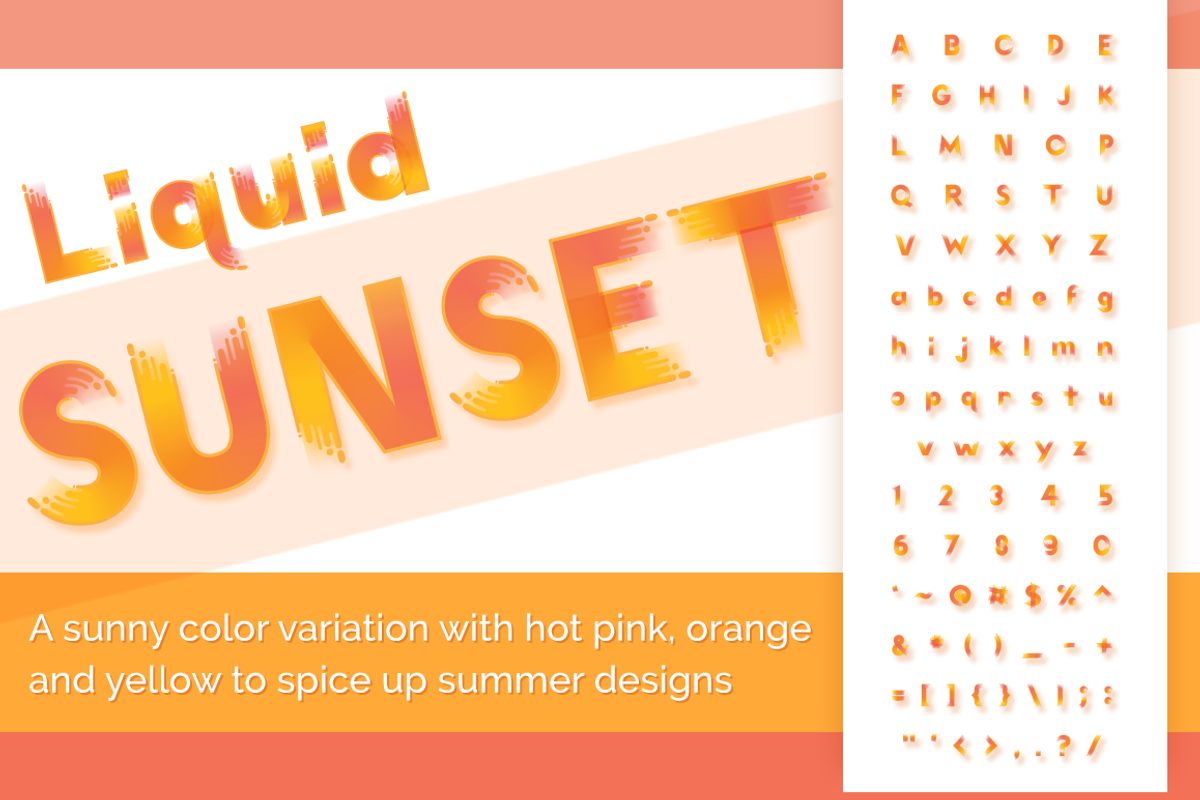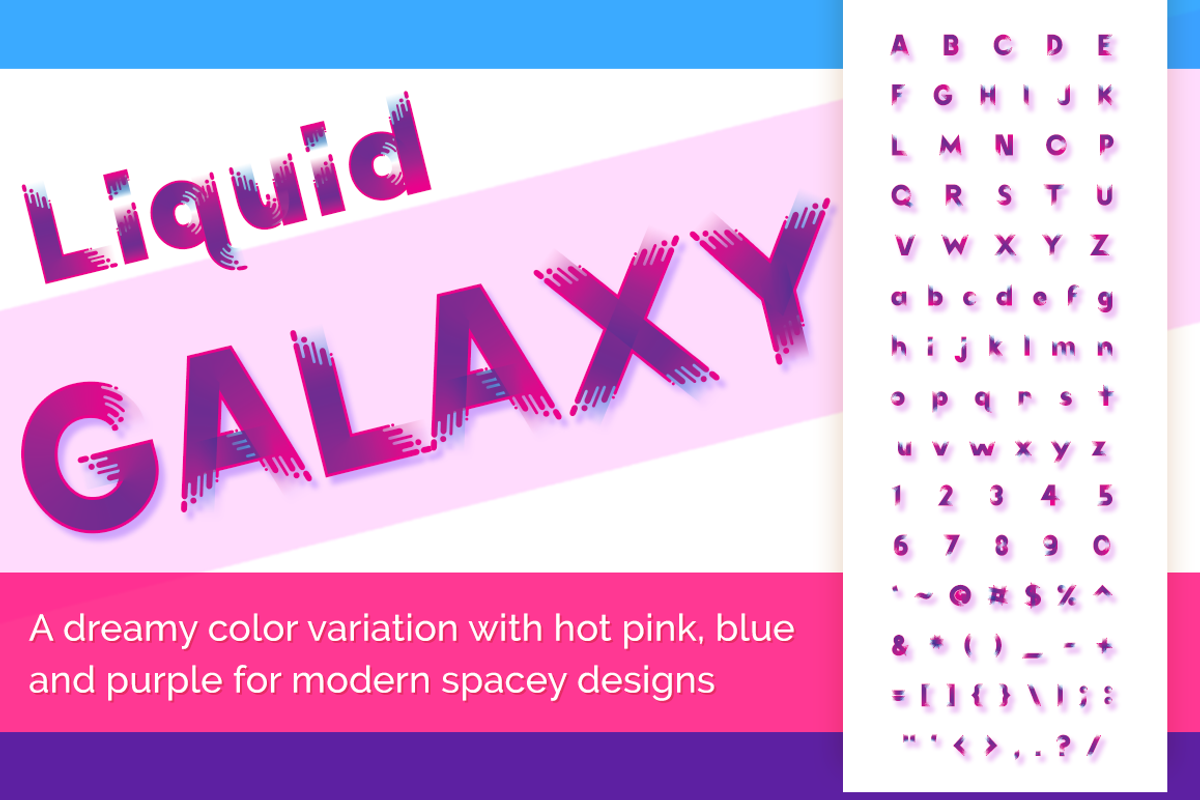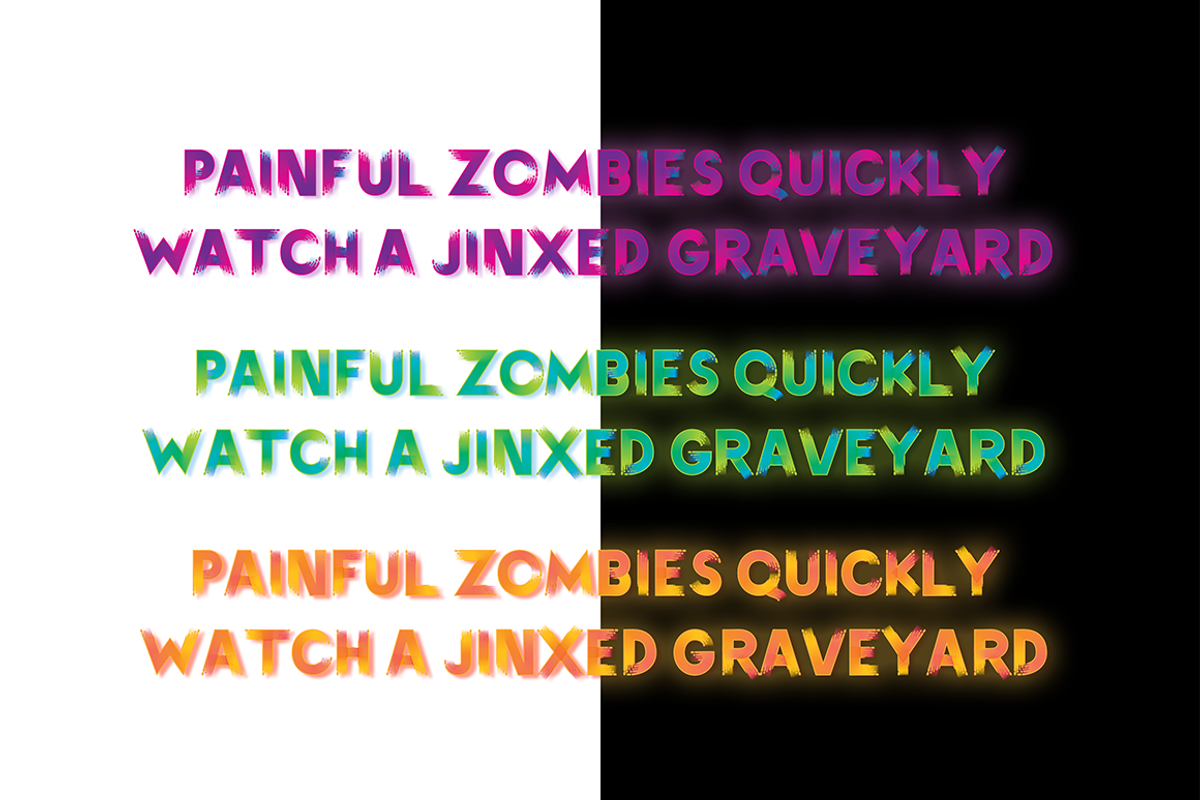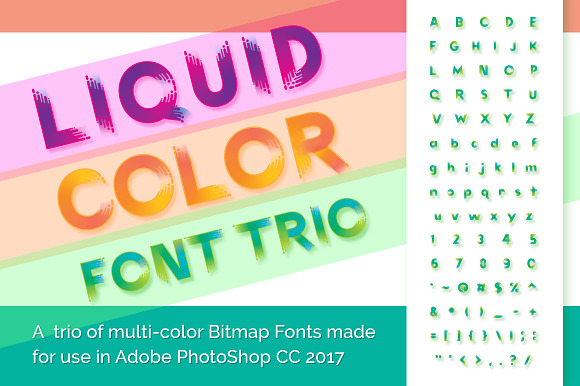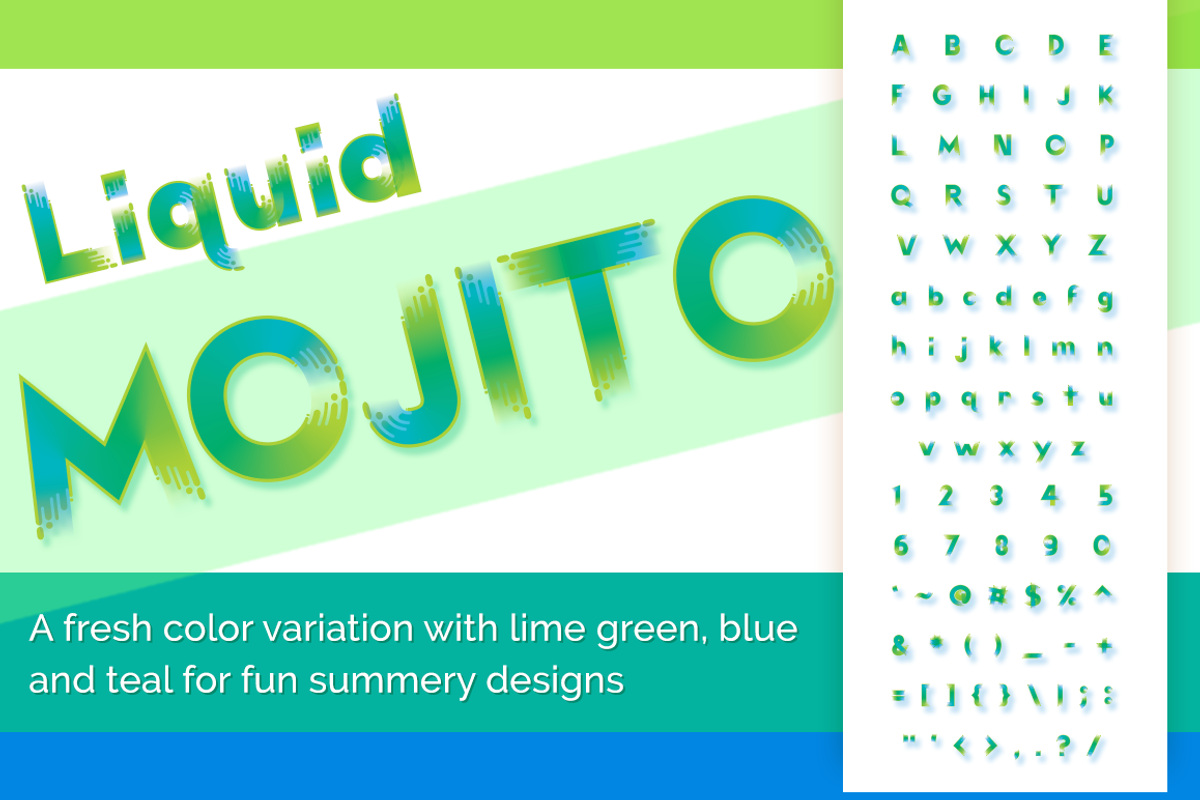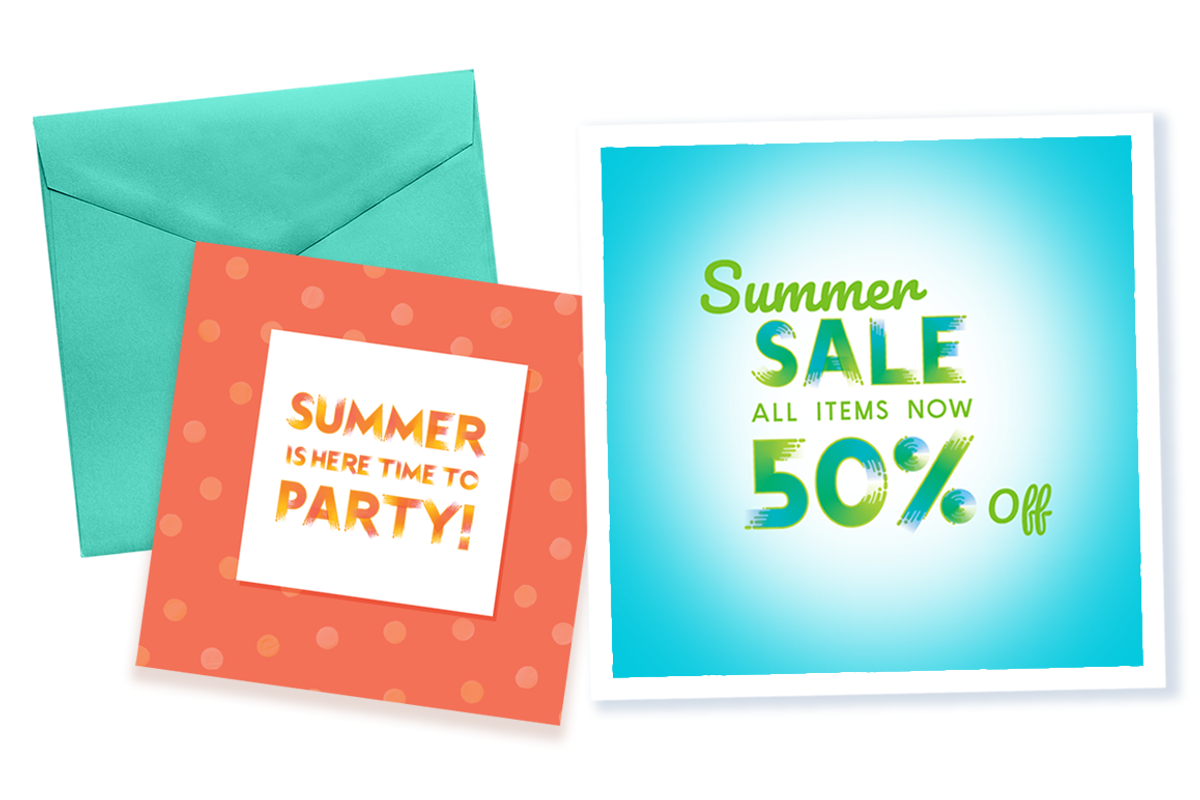
Liquid Color Font Trio
Liquid Font is a new set of 3 full color bitmap fonts with 94 glyphs in each color combination including the basic english alphabet in uppercase and lowercase, numeric characters 0-9 and basic punctuation. Each multi-color version of Liquid Font is included in the following formats:
Note: Because these are multi color bitmap fonts you cannot currently change the color as you would with a standard bitmap font.